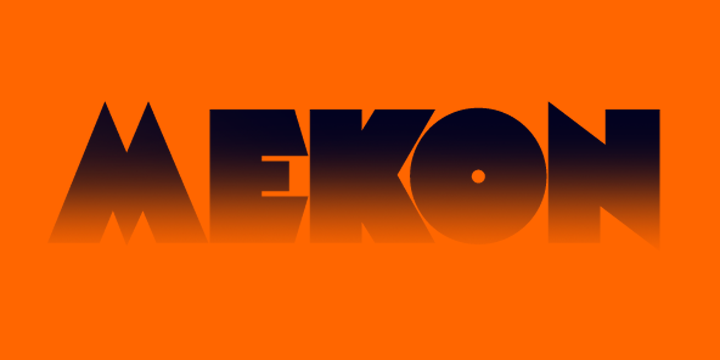
Mekon™
by The Northern Block
The Mekon Font Family was designed by Jonathan Hill and published by The Northern Block. Mekon contains 4 styles and family package options. More about this family
Mekon is a modern heavyweight typeface digitised and expanded from Peter Steiners Black Body (1973). Retro style Pacman shapes are combined with small keyhole counters to create a bold and witty font ideal for apparel, books, t-shirts and posters. Mekon is now available as version 2.0 (2021); the remastered version meets higher technical standards that modern-day users demand.
Included in the font are over 460 characters, four unique styles, with a free gradient option. Opentype features consist of digital numerals, lining figures, fractions and alternate a, c, e, f, i, k, m, n, r, M and S with language support covering Western, South and Central Europe.
Designers: Jonathan Hill
Foundry: The Northern Block